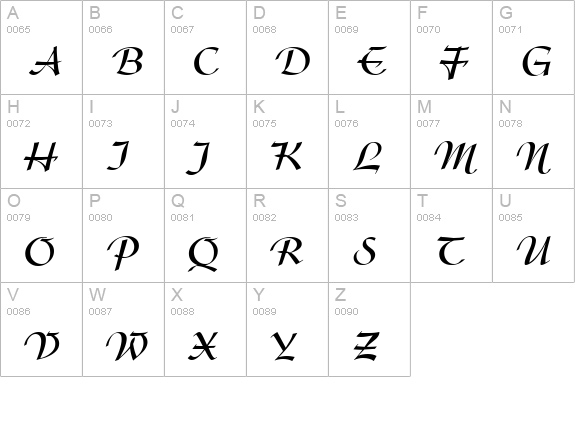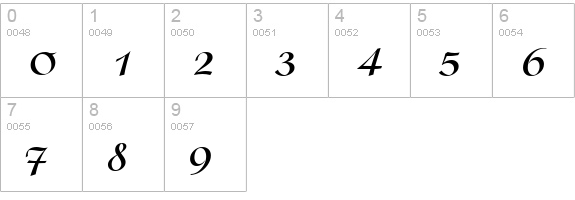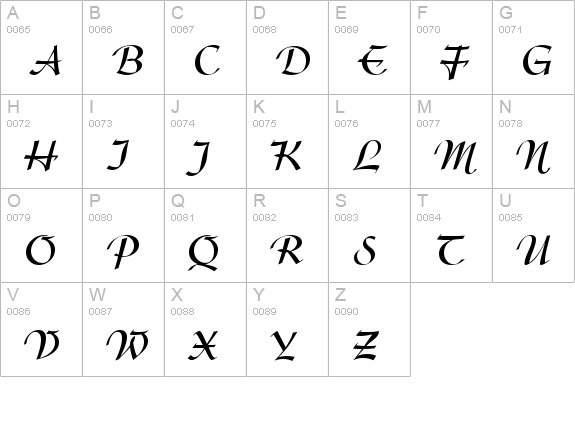
Argentine-Bold Font Details
Argentine-Bold is a strong, high-contrast variant in the Argentine typeface family \xE2\x80\x94 well suited to headlines, attention-grabbing titles, and strong calls-to-action.
Introducing Argentine-Bold, a striking and versatile font that exudes confidence and elegance. With its bold and modern design, Argentine-Bold is perfect for creating eye-catching headlines, posters, logos, and more. This font commands attention and leaves a lasting impression on any project it is used in. The best part? Argentine-Bold is available for free download at FontsMarket.com. That's right, you can add this exceptional font to your collection without any cost. Don't miss out on the opportunity to elevate your designs with the bold and captivating Argentine-Bold font. Download it today and unleash your creativity!